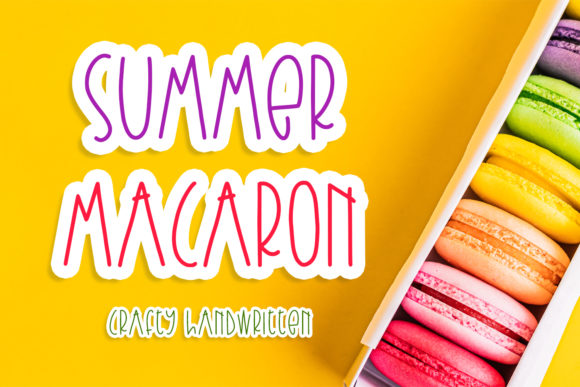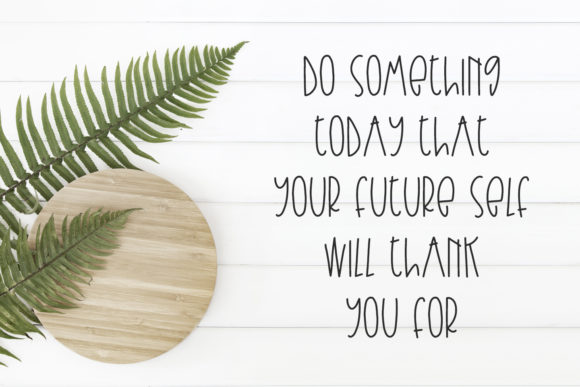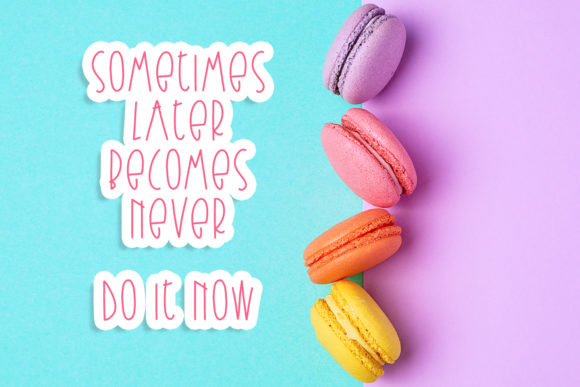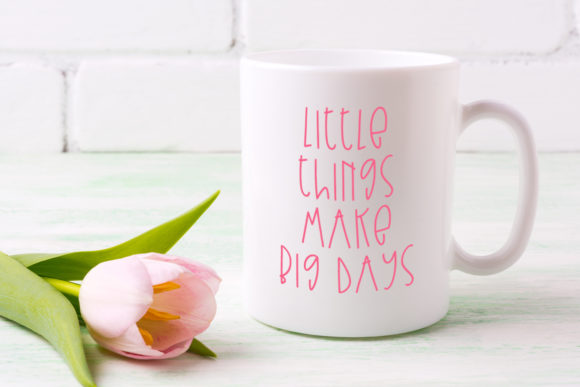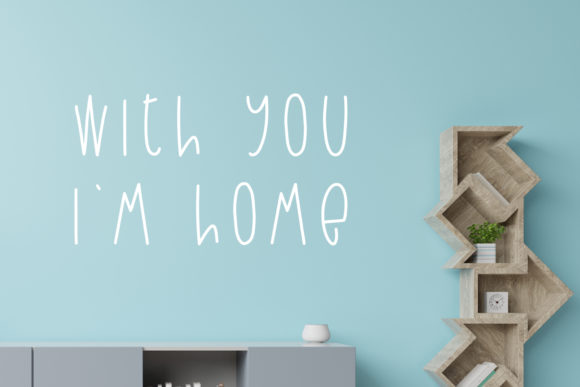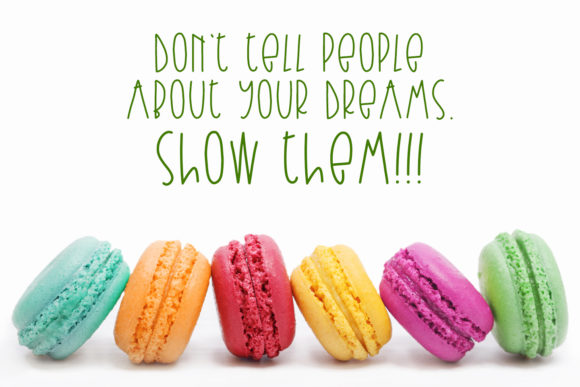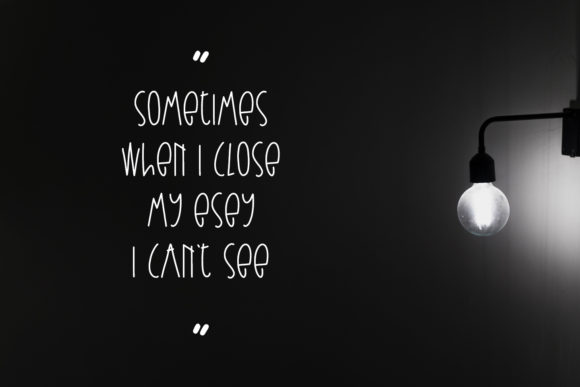
Summer Macaron Font
About Summer Macaron Font
Summer Macaron is a cute and casual handwritten font with an incredibly friendly feel. Its casual charm makes it appear wonderfully down-to-earth, readable and, ultimately, incredibly versatile. Summer Macaron will look outstanding in any context, whether it’s being used on busy backgrounds or as a standalone headline!